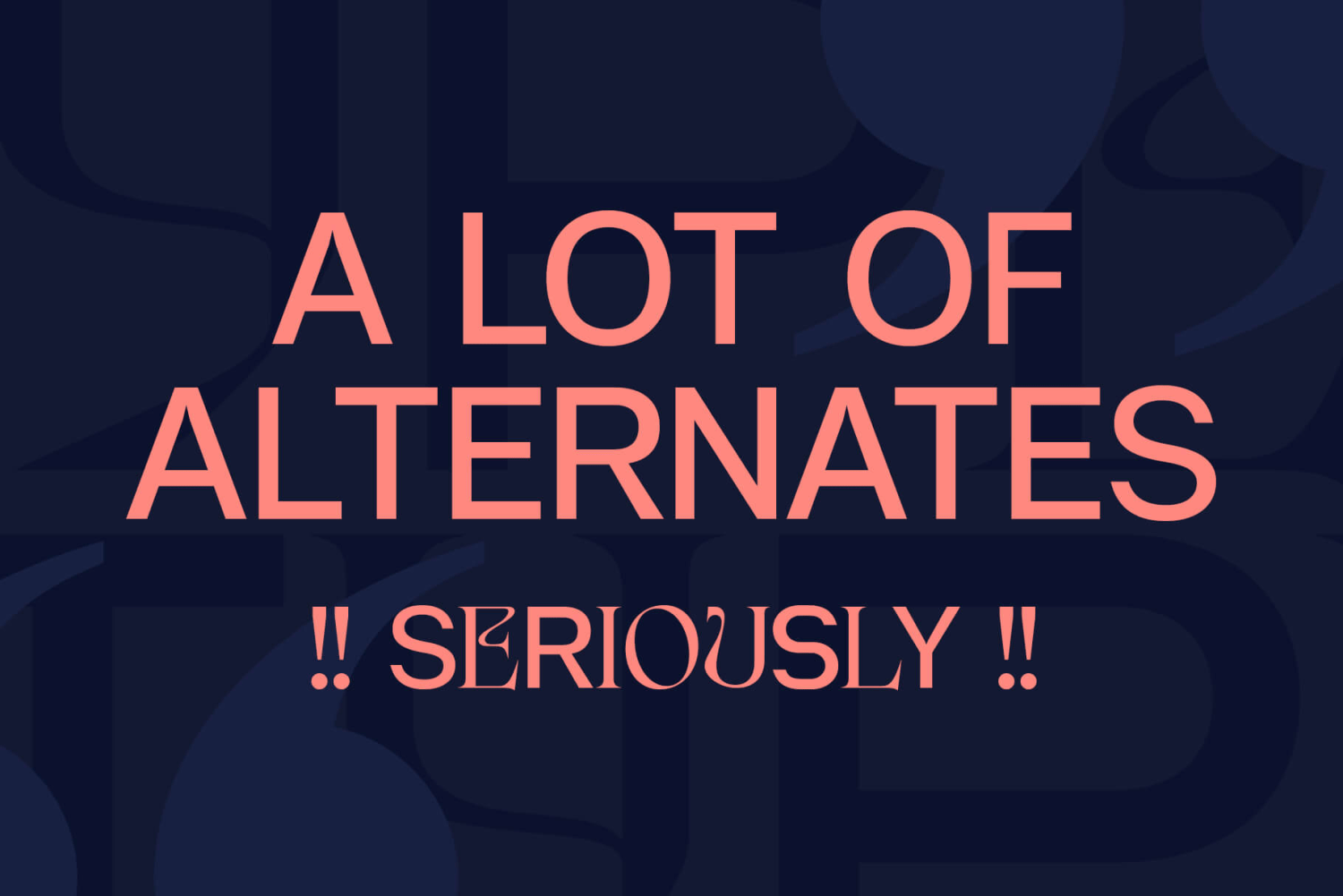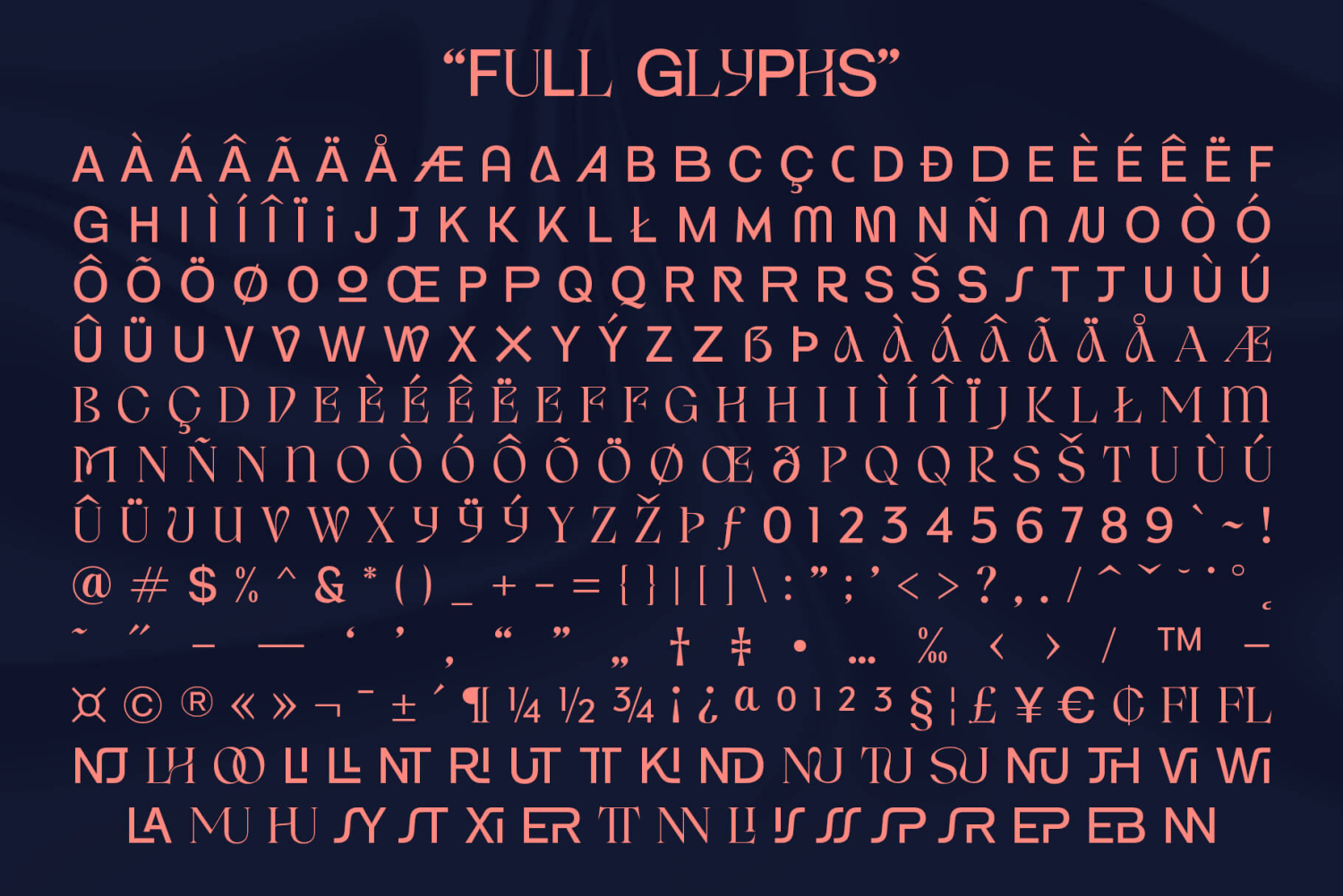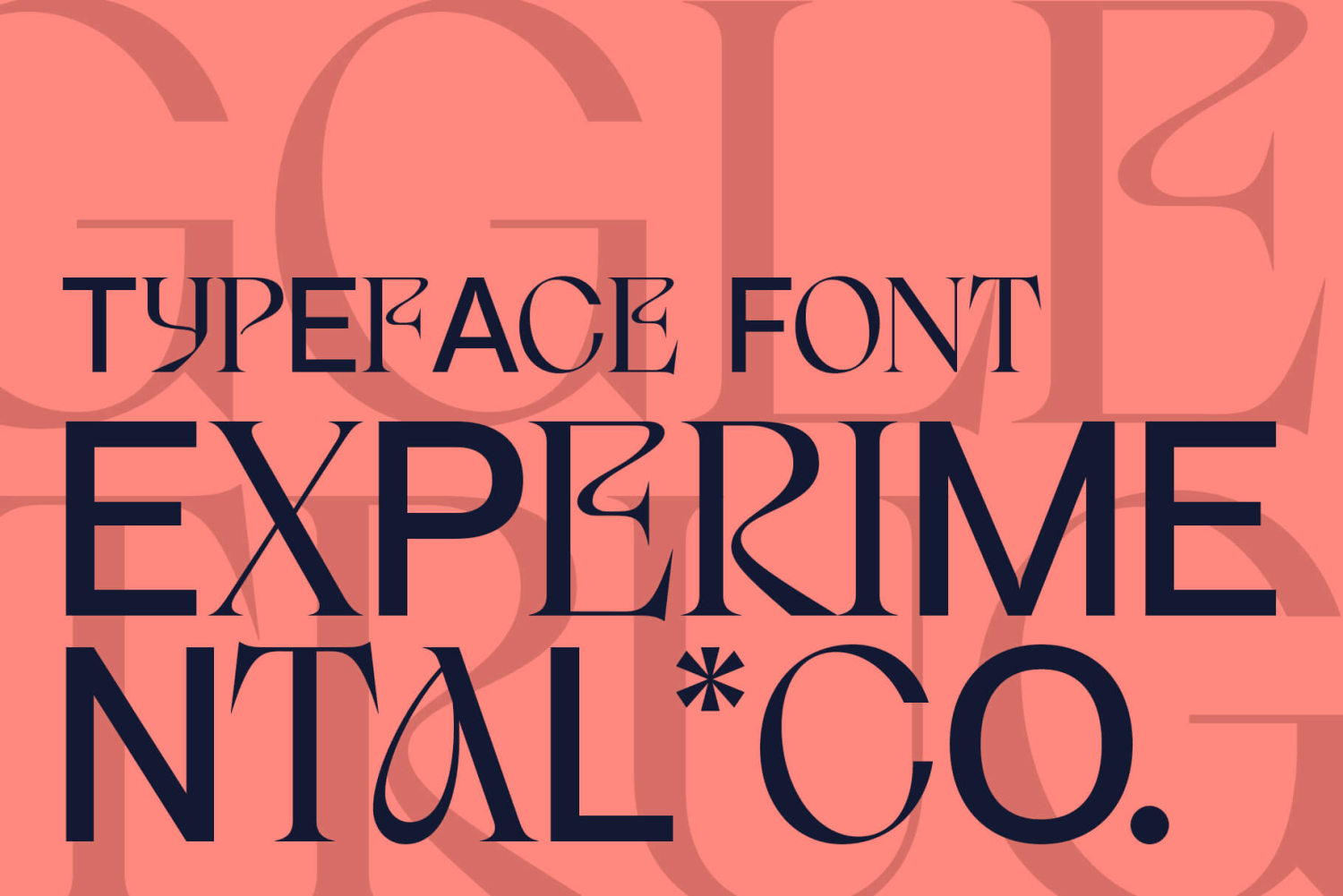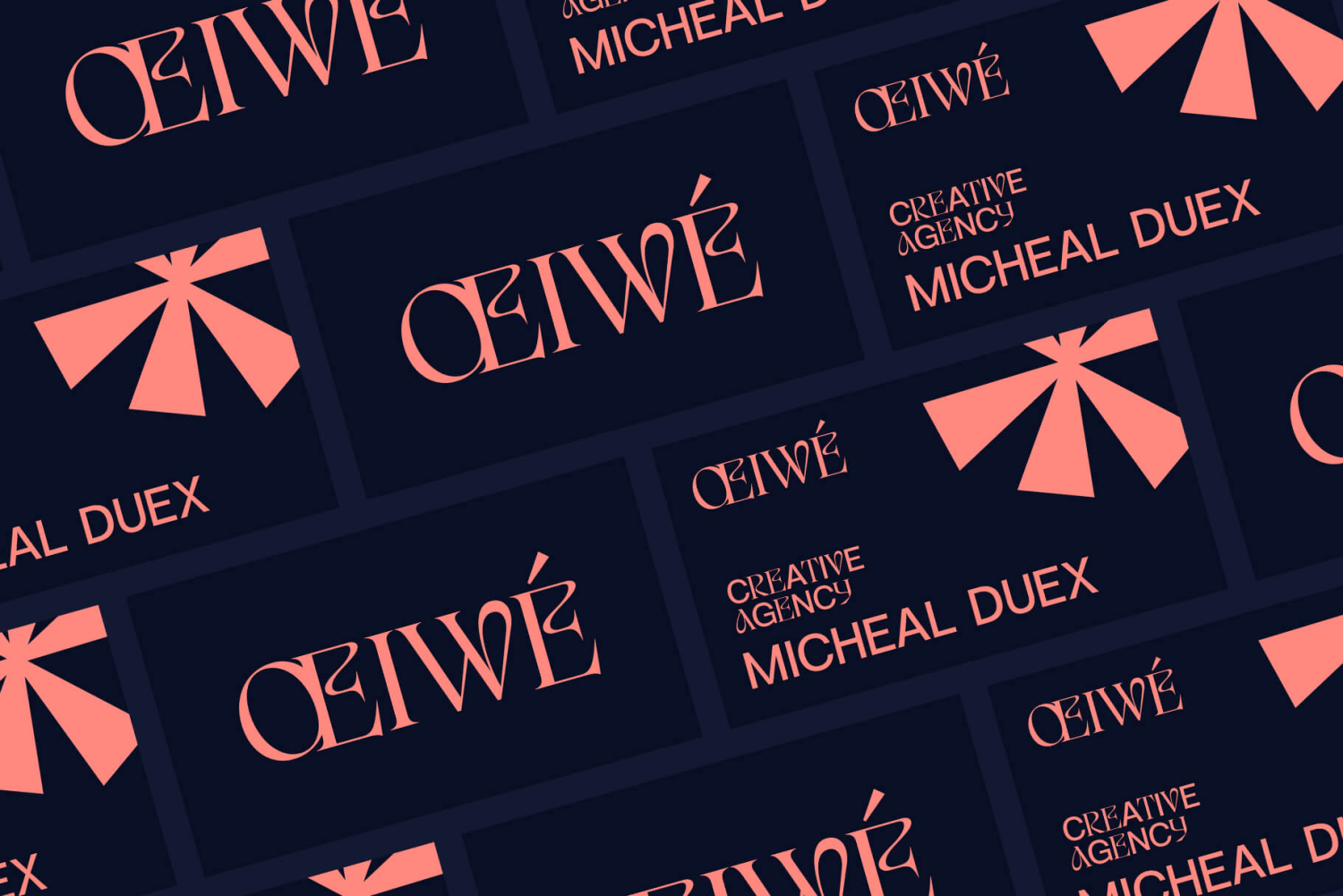
Dexurita is a mix of modern sans and serif combined in one beautiful and inspiring font. I also love the combination of Sans and serif which makes it classic and nostalgic. Dexurita brings a touch of charm and sophistication. It is recommended that you…